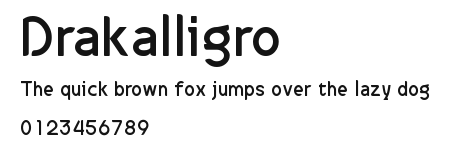
Drakalligro Preview
• Font Name: Drakalligro
• Full Font Name: Drakalligro
• Version: Versión 1.2 Marzo 6, 2013, primera edición
• Designer: Yun González
About Drakalligro.ttf
Drakalligro.ttf is a modern, elegant sans-serif font designed for ultimate readability and visual harmony. Perfect for branding, headlines, web design, and print materials.